Homeless fonts
A series of typefaces has been created by homeless people and is being sold to raise awareness and funds to tackle issues around homelessness.
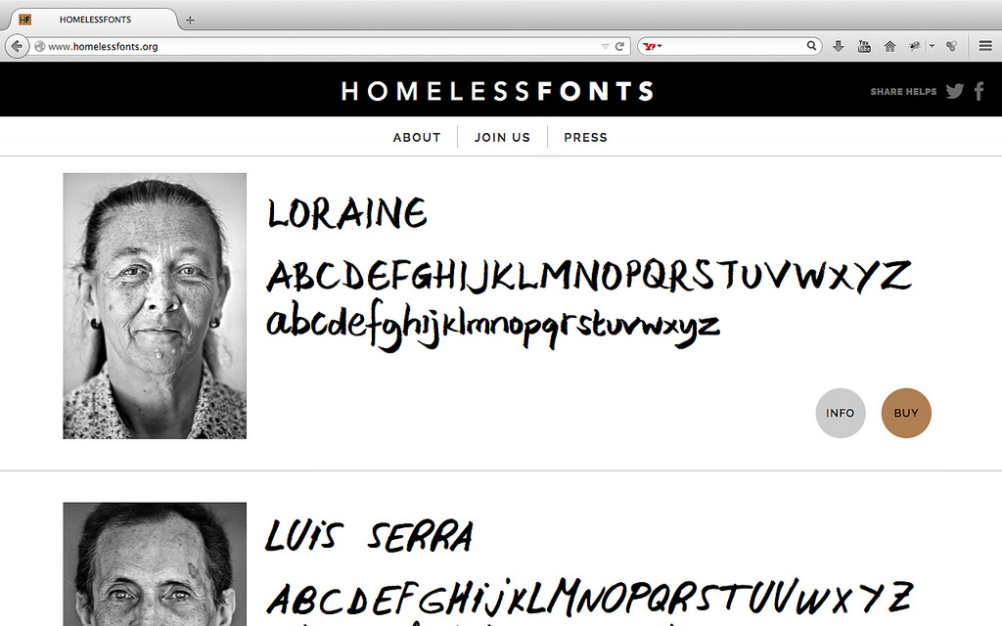
The Homelessfonts.org initiative has been launched by Barcelona-based The Arrels Foundation, which works with homeless people in the city, and ad agency The Cyranos McCann.
The typefaces are all based on the hand-writing of homeless people.
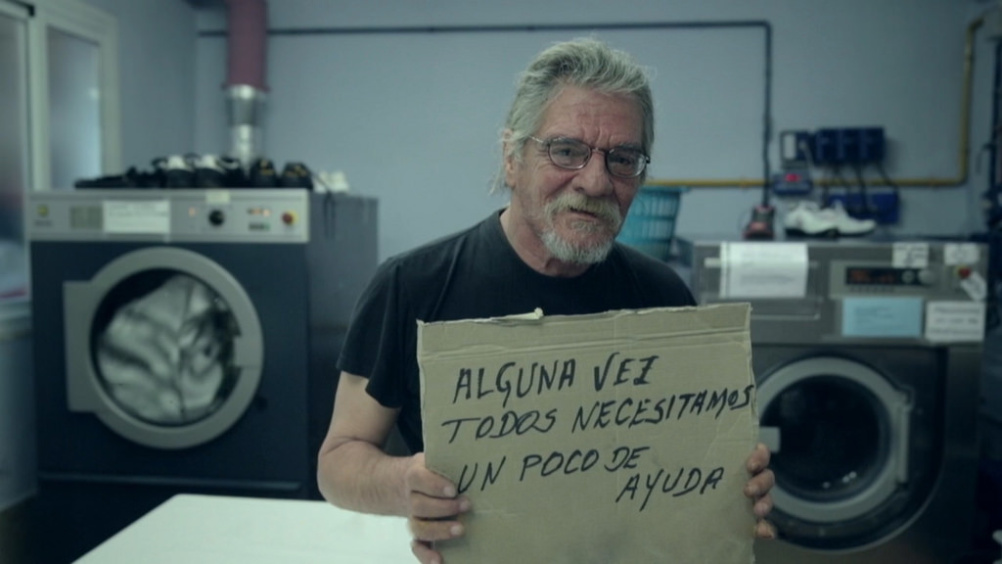
Sometimes we all need a little help
Those behind the initiative hope that individuals and companies will buy the different fonts and that their use will raise awareness of homelessness issues. Any money made, meanwhile, will go to support the work of the Arrels Foundation.
To create the typefaces, a series of workshops was held, in which participants worked on typographic exercises.
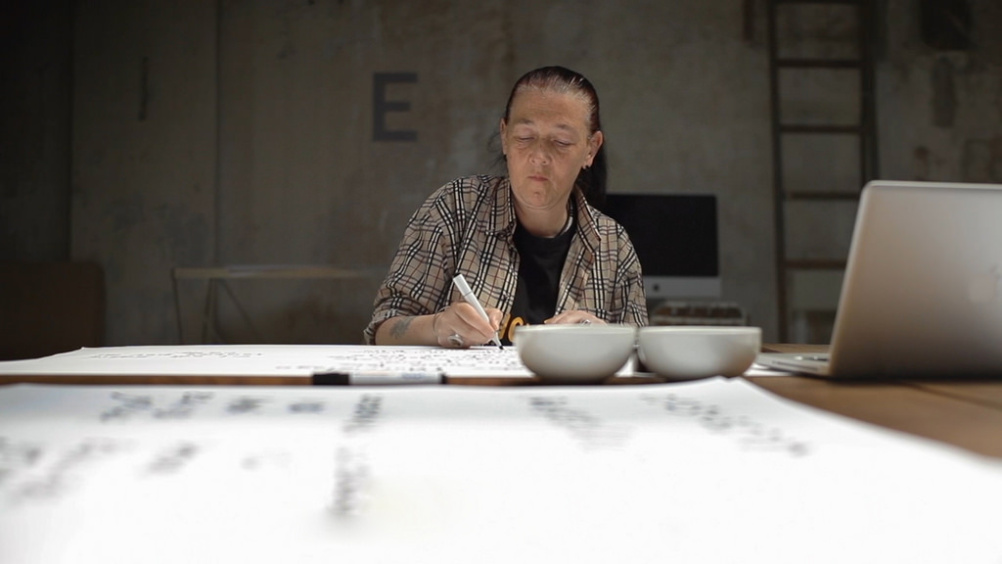
Loraine creating her typeface
Their writing was then scanned and converted into usable fonts. So far around ten have been created.
Loraine, a participant in the scheme, says, ‘I never though my typeface could be worth anything. Thanks to this project I’ve discovered that my writing is nice enough for a brand like [food company] Valonga to take an interest in it and use it on their products.’